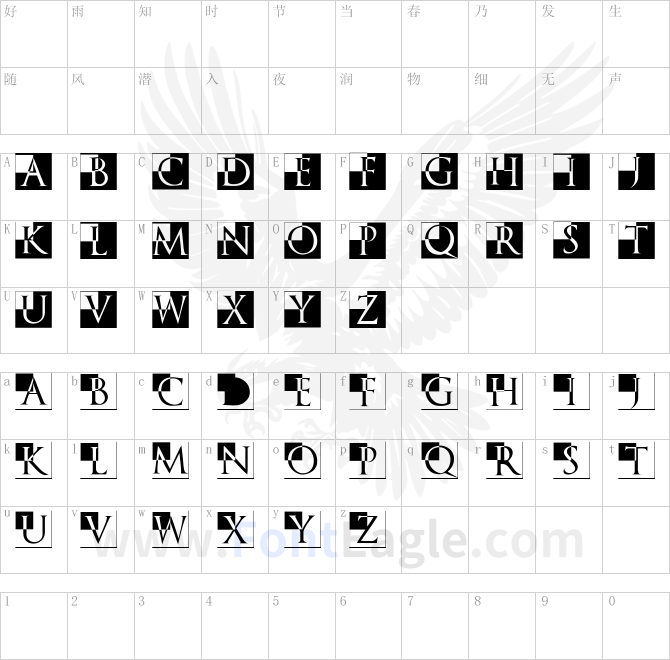
- Font name:TrajanusBricksXtra
- Font Subfamily ID:TrajanusBricksXtra
- Font Full Name:TrajanusBricksXtra
- Font Version:1.0 2004-06-11
- Postscript:TrajanusBricksXtra
- Font Copyright:11-6-04 Copyright (c) Manfred Klein